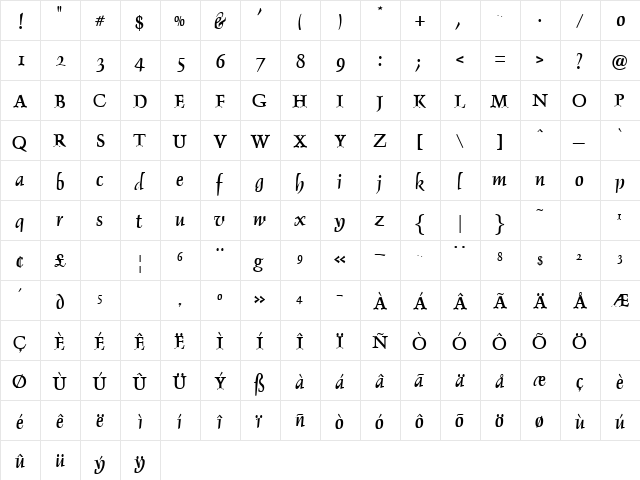
OPDelphin-TWO TWO
Design Context for OPDelphin-TWO Typeface
OPDelphin-TWO takes a measured approach to typography — its balanced proportions and neutral character make it a reliable workhorse for both digital and print work.